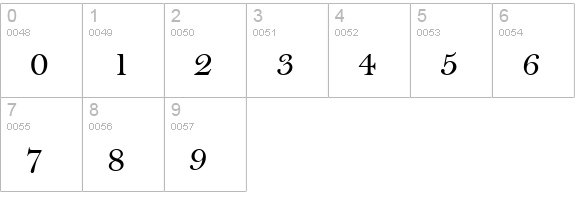
Baltimore-Regular is the standard, neutral variant in the Baltimore typeface family \xE2\x80\x94 well suited to general body text, paragraphs, and standard typographic work.
Baltimore-Regular is a versatile and elegant font that exudes a timeless charm. With its clean lines and classic appeal, this font is perfect for a variety of design projects. Whether you're creating a sleek professional website, designing stylish invitations, or crafting eye-catching posters, Baltimore-Regular is sure to make a bold statement. And the best part? Baltimore-Regular is completely free to download at FontsMarket.com. So you can enhance your designs with this sophisticated font without breaking the bank. Don't miss out on this opportunity to elevate your projects with the beauty of Baltimore-Regular. Download it now and let your creativity shine!